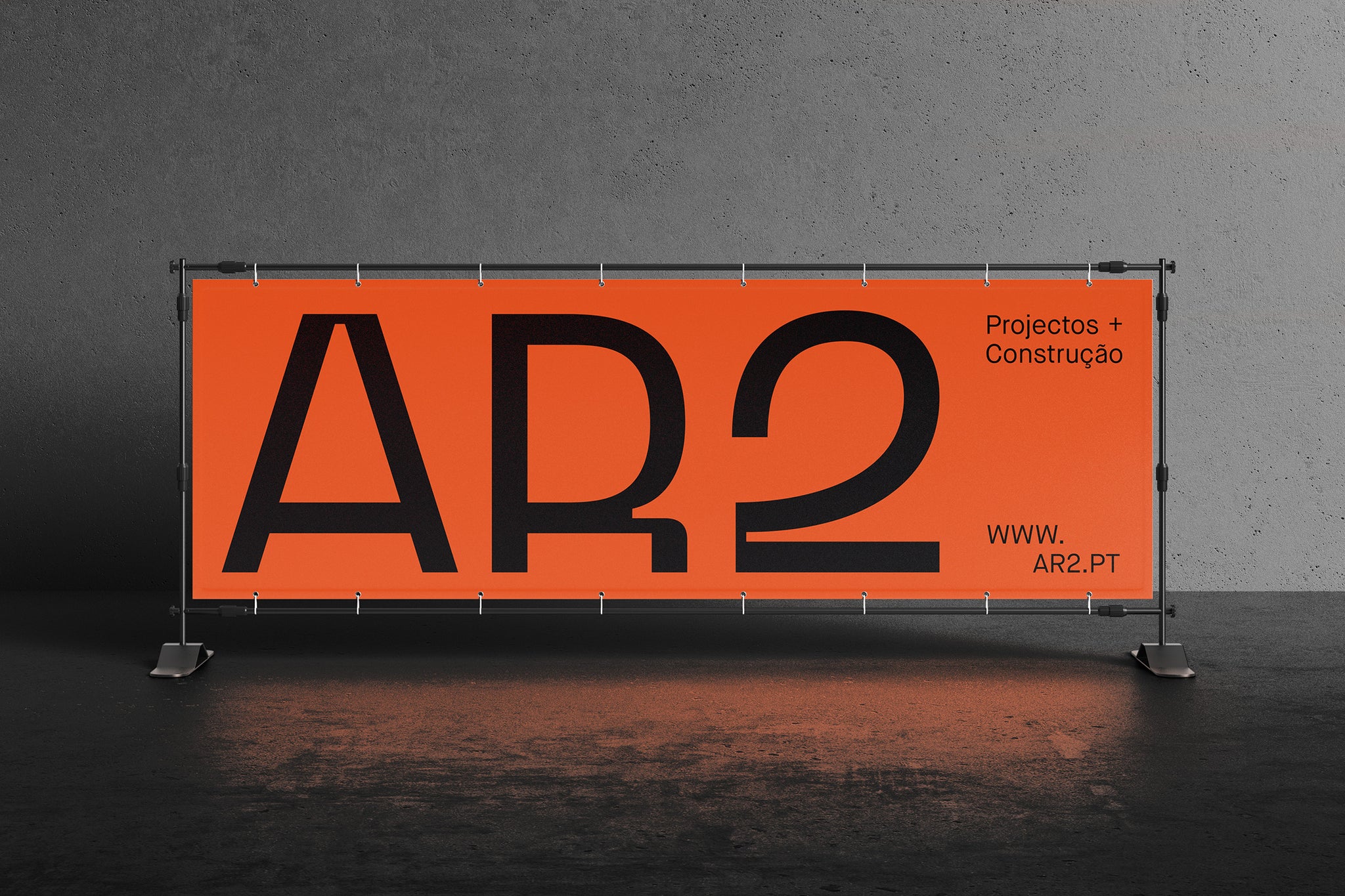
AR2 is a construction company that arises from the need to fill a gap in the market, giving the customer a detailed monitoring of each project. The vision is born from years of experience in a stagnant market, where it’s urgent to communicate truth to the client, clarifying all phases and the process behind a construction project.
In this project, we strive for a modern approach, oriented towards a niche market that seeks special attention to detail and that values exclusivity. Thus, inspiration arises from the artistic currents of the first half of the 20th century, using the past as a parallel to the work developed by AR2: modernity with inspiration in what was done in the past.
This dichotomy appears represented not only in the type, but also in the modern use of color, in contrast to the name and the brand, which takes us to another time. An aesthetic duality that we seek to highlight across the whole identity.